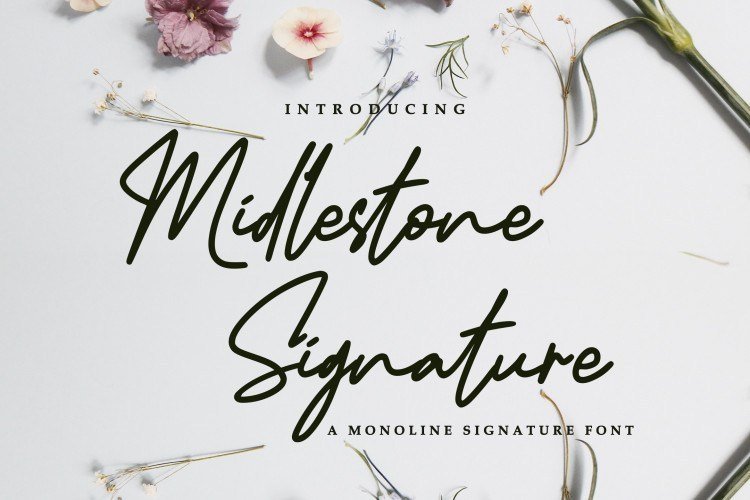
Midlestone Signature Font
Hi Font Lovers! This is a new stylish handmade signature font, a work that is purely handwritten, has natural characteristics.
Presenting Midlestone Font. It’s a beautiful monoline signature font. It has a natural writing style and will add a classy touch to your designs.
It’s perfect for logos, wedding invitations, branding, headlines, labels, signatures, book covers, posters, quotes and more.